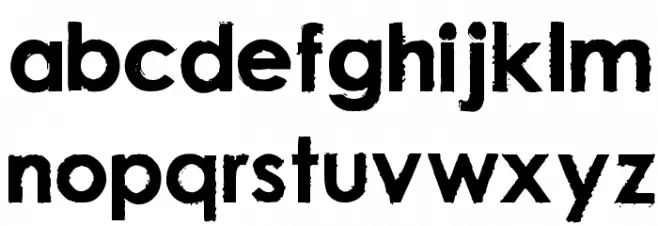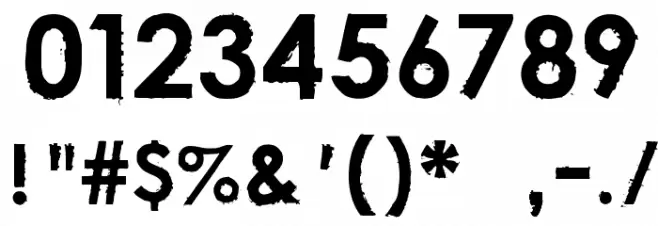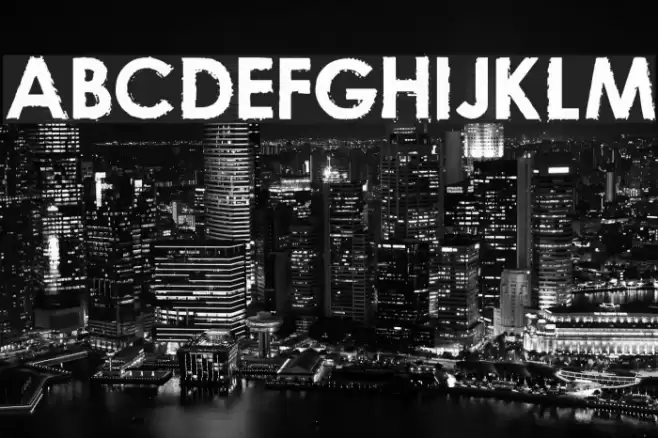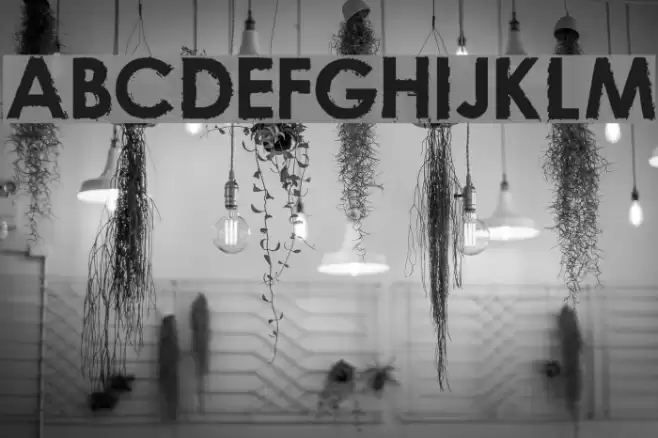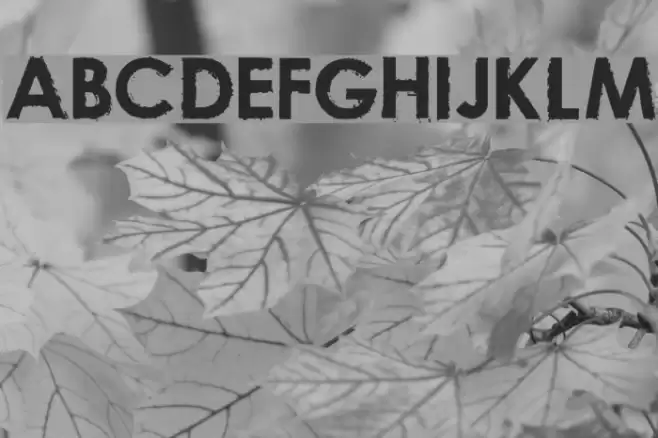
nu-century-gothic Bold Font
nu-century-gothic Bold Description
This font features a bold and impactful style with a modern, sans-serif design. The characters are uniform in width, providing a clean and structured appearance. The bold weight enhances its presence, making it suitable for attention-grabbing headlines and titles. The font maintains a consistent stroke thickness, contributing to its low contrast and straightforward readability. Its geometric shapes and even spacing give it a contemporary and professional look, ideal for digital and print media.
A bold, modern sans-serif font with geometric shapes and low contrast.
- Proposed Projects: Ideal for branding, advertising, headlines, posters, and digital media where a strong, modern presence is required.